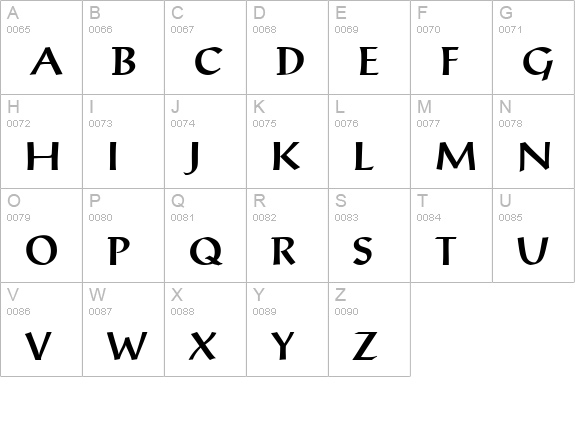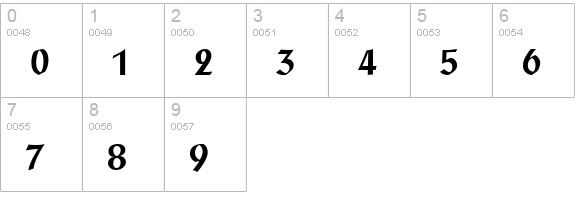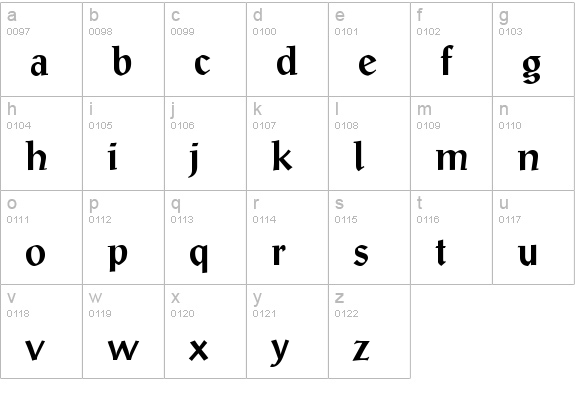
Post Antiqua BE Medium is a balanced, medium-weight variant in the Post typeface family \xE2\x80\x94 well suited to sub-headlines, navigation, and balanced editorial work.
Post Antiqua BE Medium is a classic and elegant serif font that exudes sophistication and timelessness. Its balanced strokes and graceful curves make it ideal for conveying a sense of tradition and authority in your design projects. The medium weight of this font strikes the perfect balance between readability and impact, making it versatile for a variety of purposes. What makes Post Antiqua BE Medium even more appealing is that it is available for free download at FontsMarket.com. This means you can access this high-quality font without any cost, allowing you to enhance your projects with a touch of refinement and professionalism. Whether you are designing invitations, posters, or branding materials, Post Antiqua BE Medium is sure to elevate your work with its timeless charm and versatility. Download it today and add a touch of classic elegance to your designs.